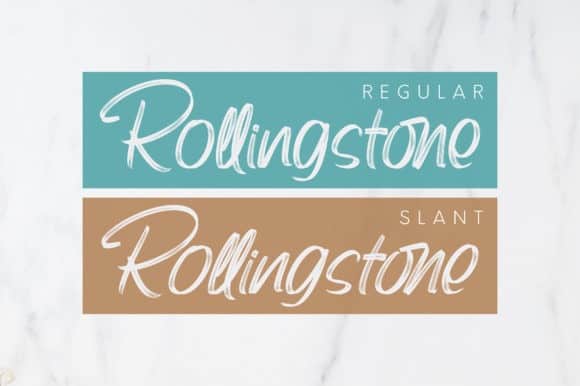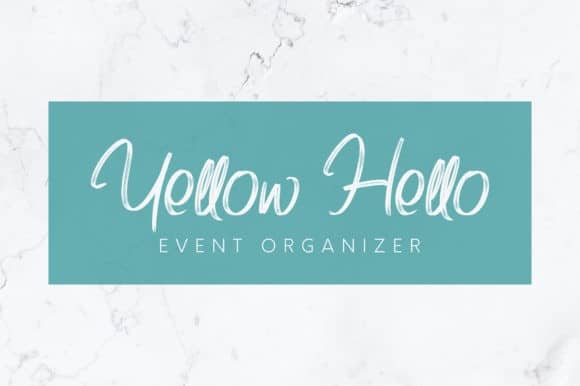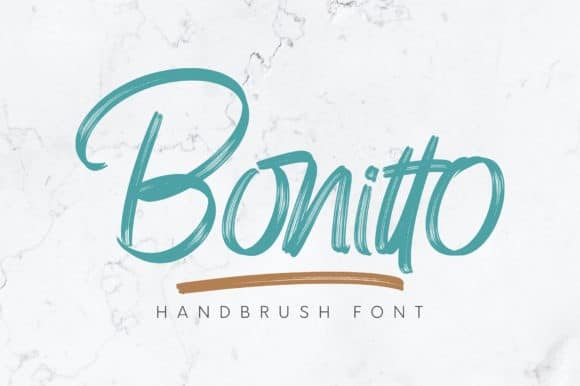
Bonitto Brush Font
Bonitto Brush Font is something unique and interesting to display and can be used for various media needs. This font is designed and shared by Omotu. Bonitto is a lovely handwritten font. designed with the help of a joyful brush pen. Fall in love with its incredibly versatile style and use it to create gorgeous wedding invitations, beautiful stationary art, eye-catching social media posts, and much more!